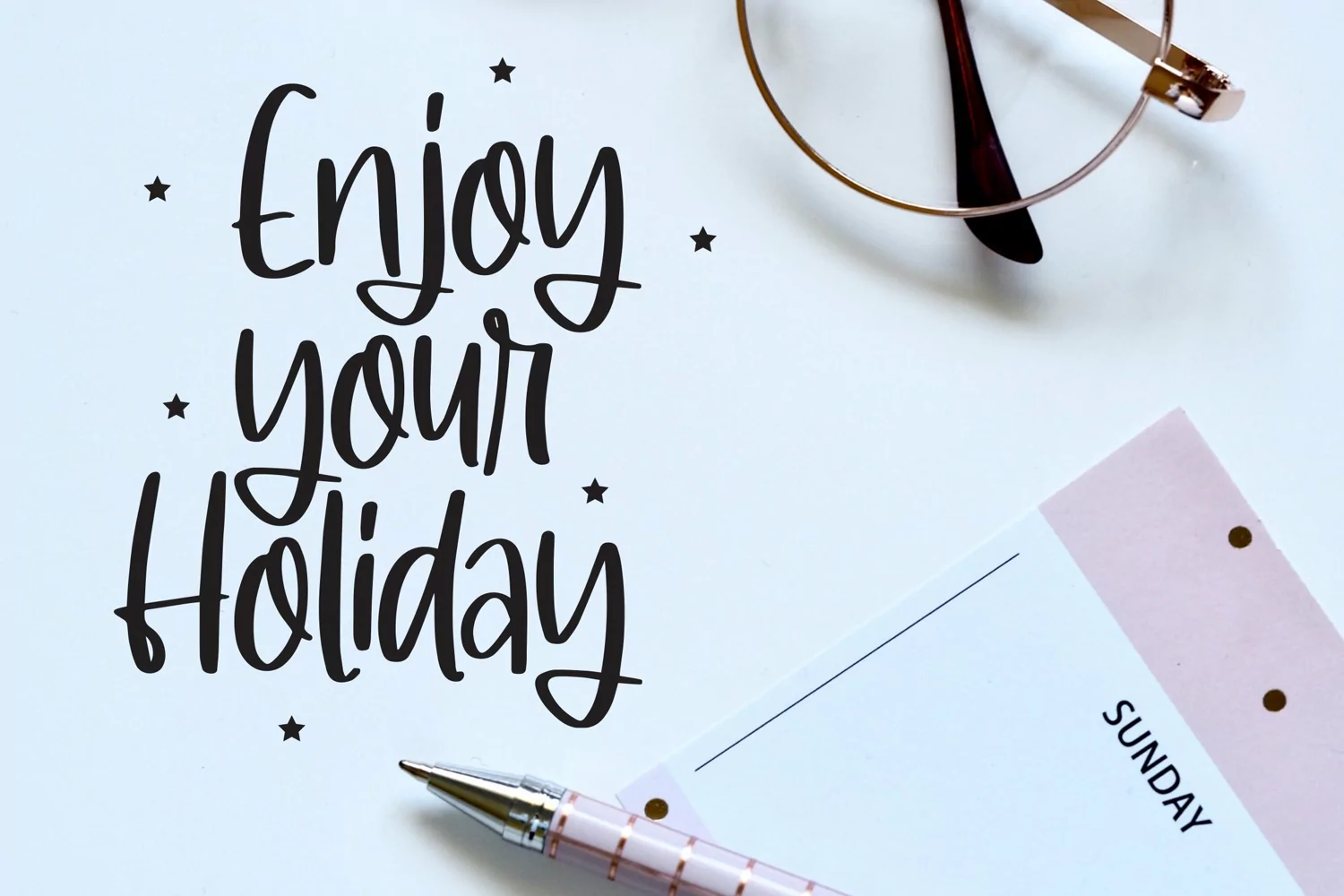
Cotton Salties - Sweet Handmade Font
Cotton Salties - Sweet Handmade Font that contain lowercase, uppercase, symbol, and also support multi language. There’s a lot ligatures in this font. This Font also comes with ligatures, alternates and many more. this font suitable for fashion, branding, catalog and other design what you want.